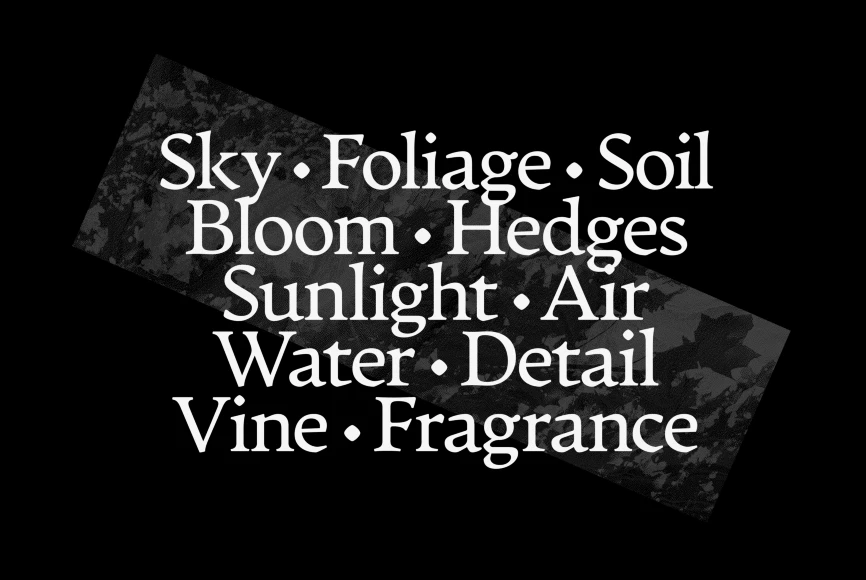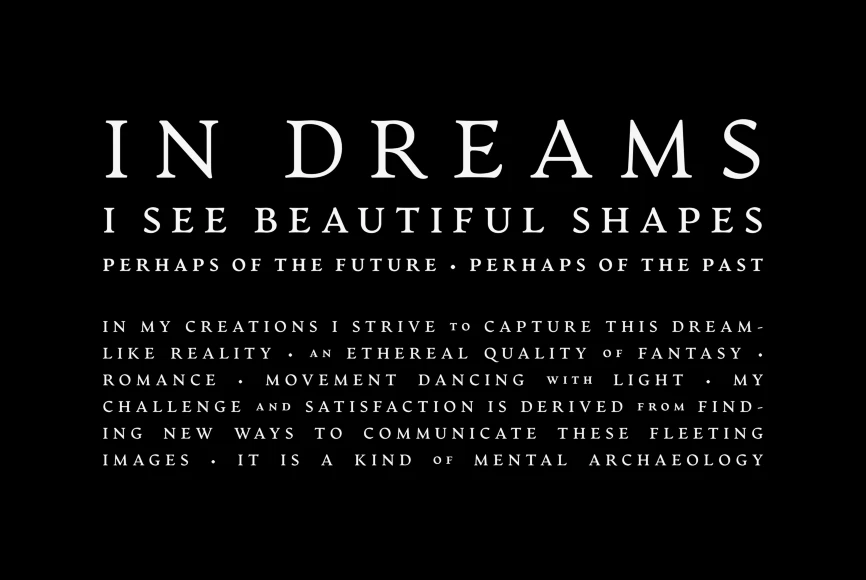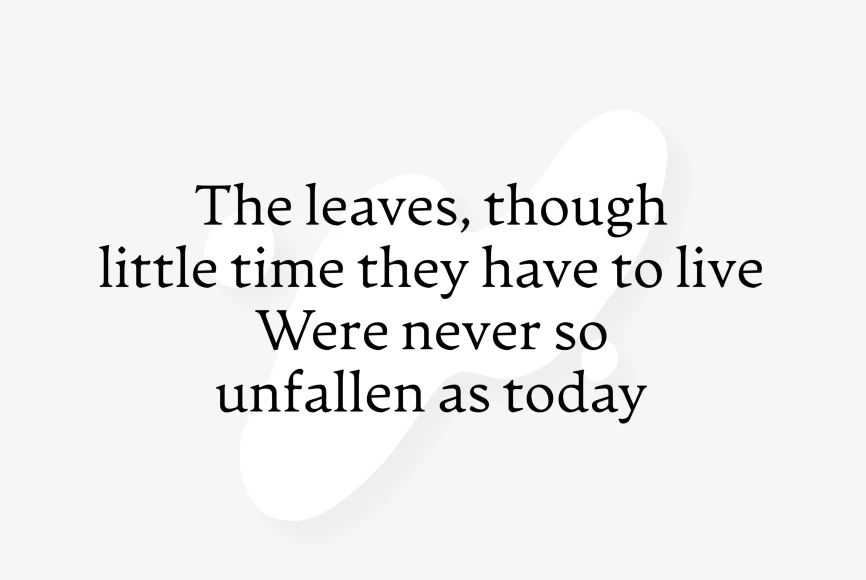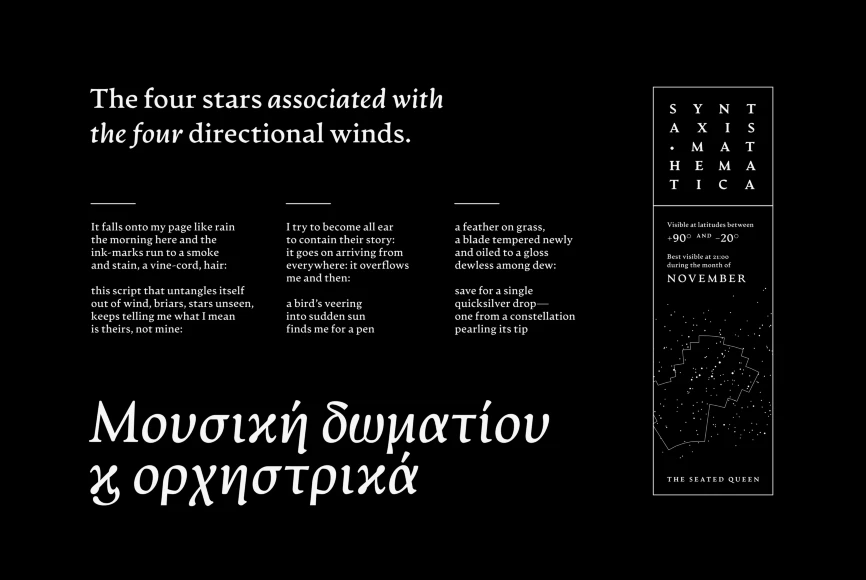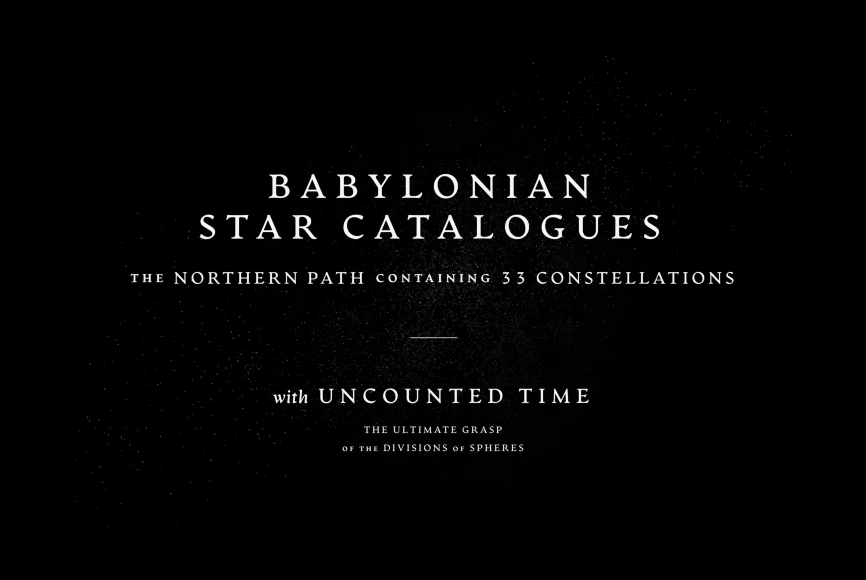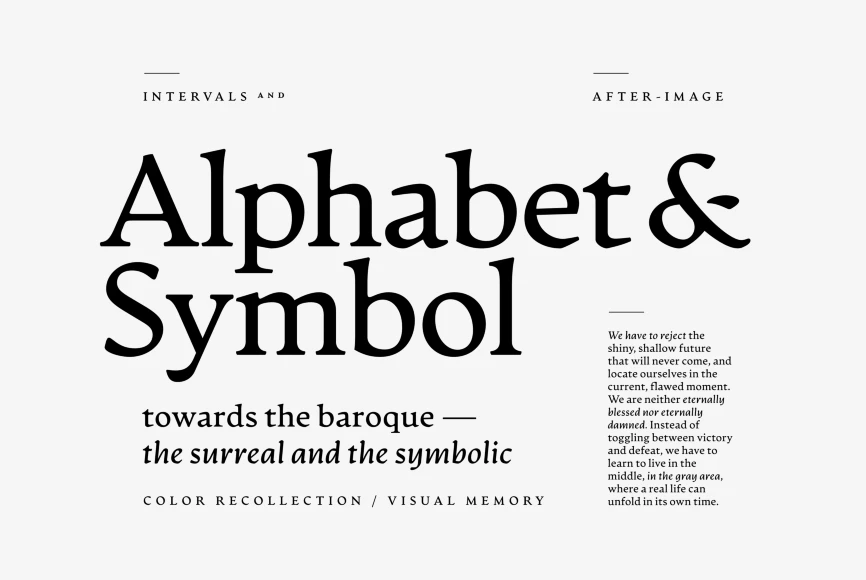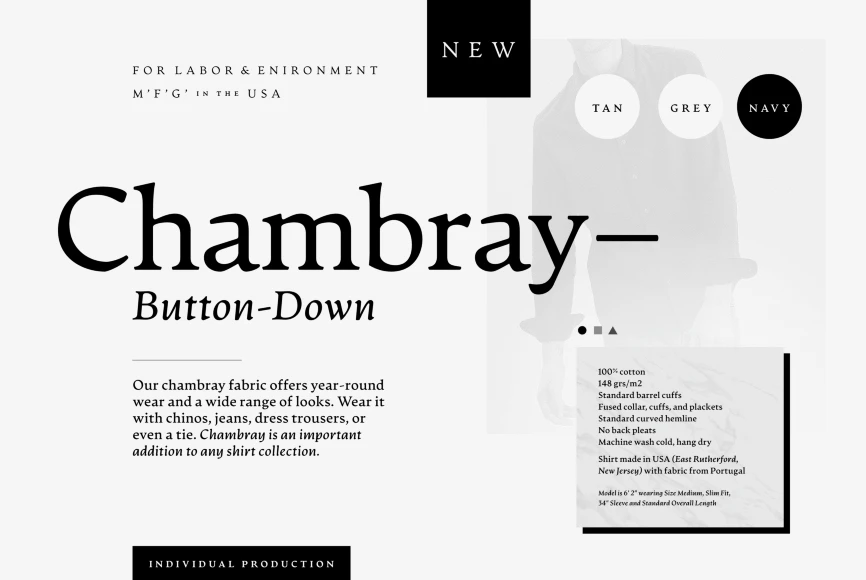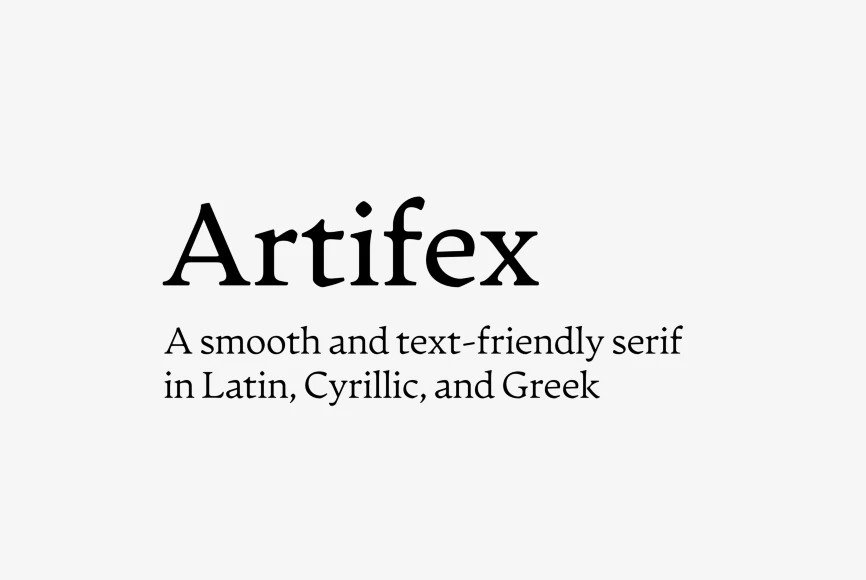
Artifex
By Connary Fagen
Artifex Hand CF is a humanist sans-serif variation on the original Artifex typeface; its serifs replaced with a subtle flare, lending a calligraphic feel and warm tone. Like its sibling, Artifex Hand is designed for flowing, easy-to-read text while doubling as a display font, thanks to its subtle details and moderate contrast.